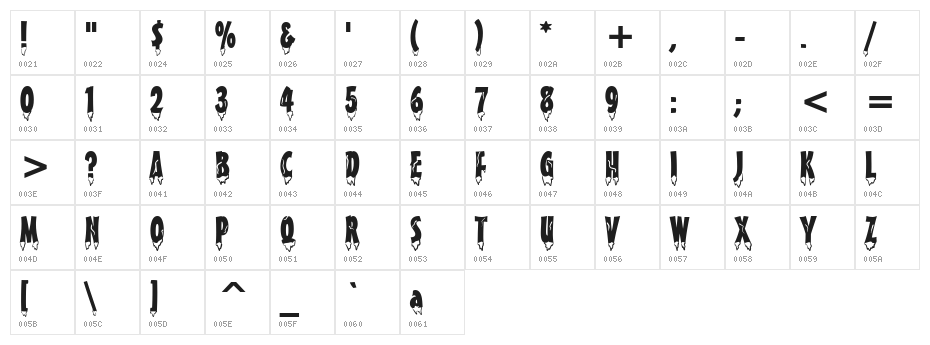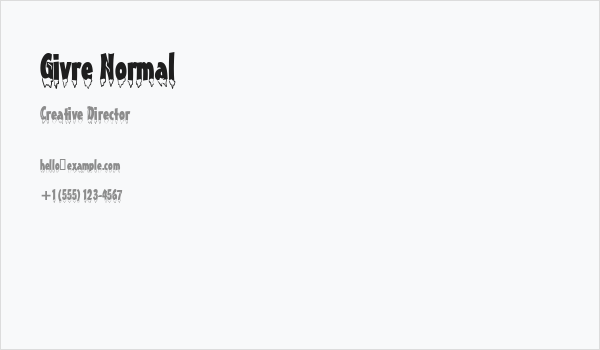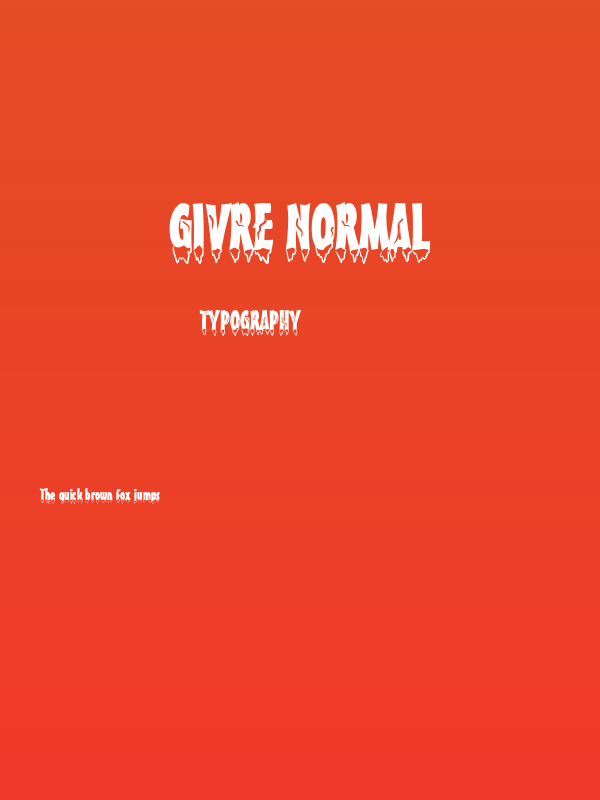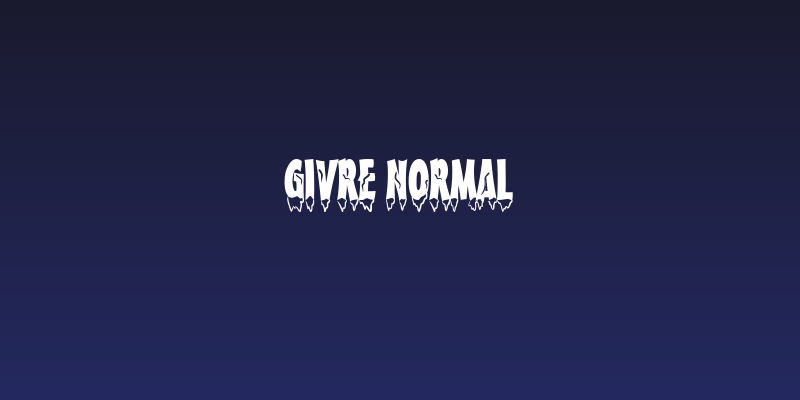
Givre Normal Font
Givre Normal Description
This font features a bold and playful design with a unique dripping effect at the bottom of each character, reminiscent of melting ice or paint. The uppercase and lowercase letters maintain a consistent style, with thick strokes and a slightly condensed form. The numbers and special characters also follow this distinctive style, making the font highly recognizable and suitable for creative projects. The overall appearance is dynamic and eye-catching, ideal for making a statement.
| Proposed Projects | This font is ideal for Halloween-themed designs, posters, logos, and any project that requires a bold, eye-catching typeface with a playful twist. |